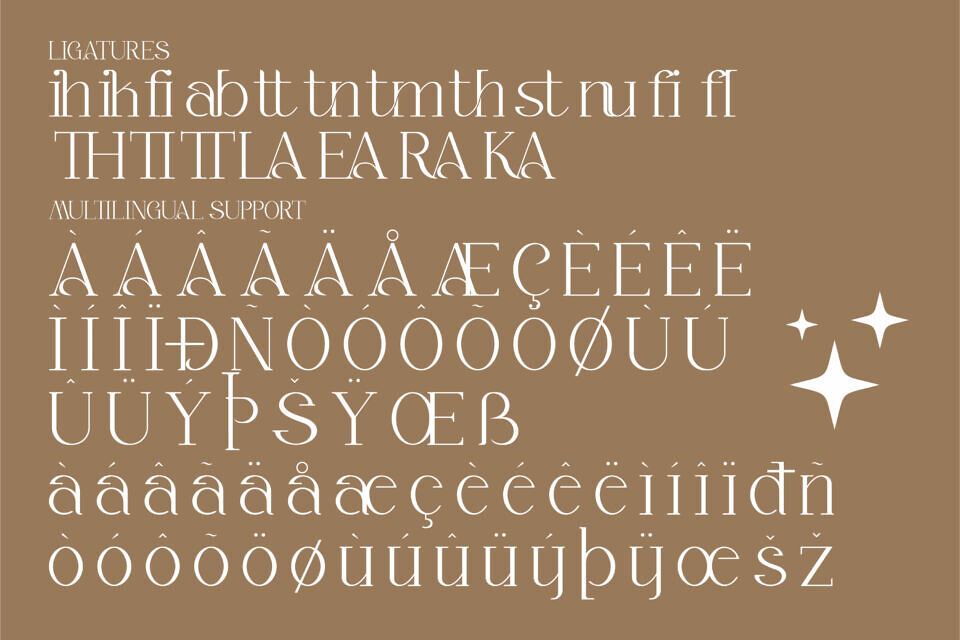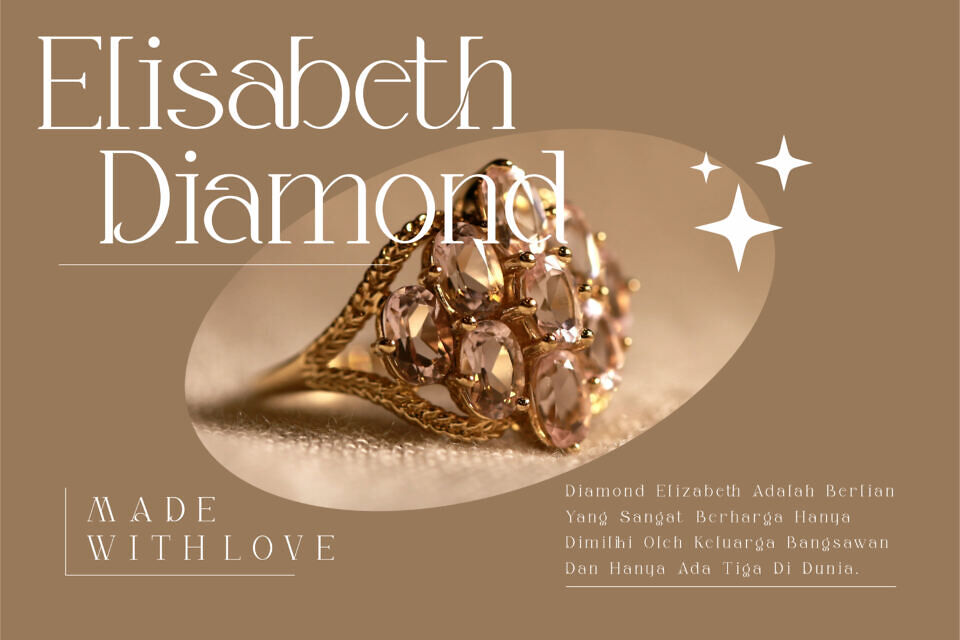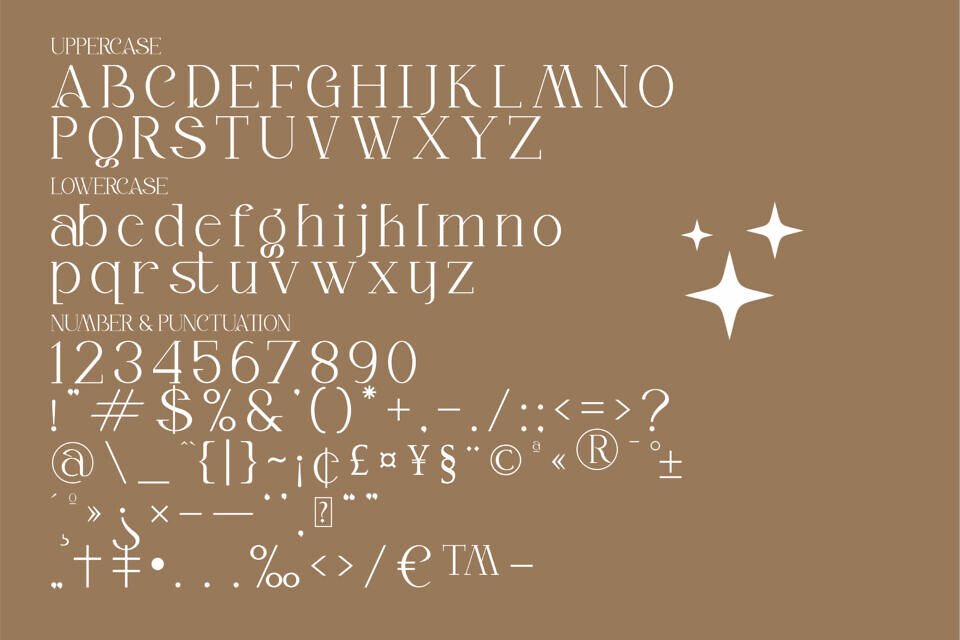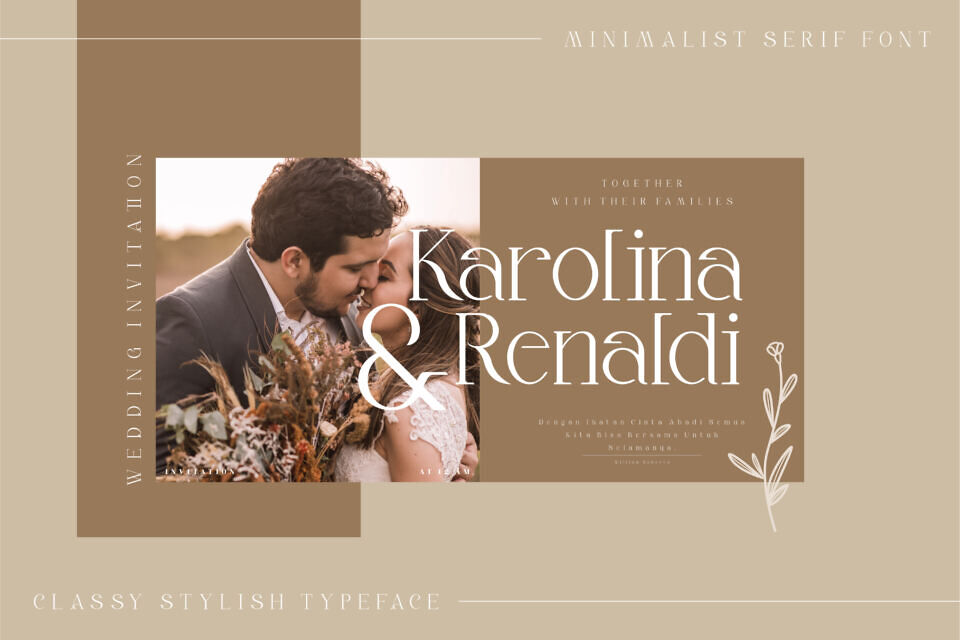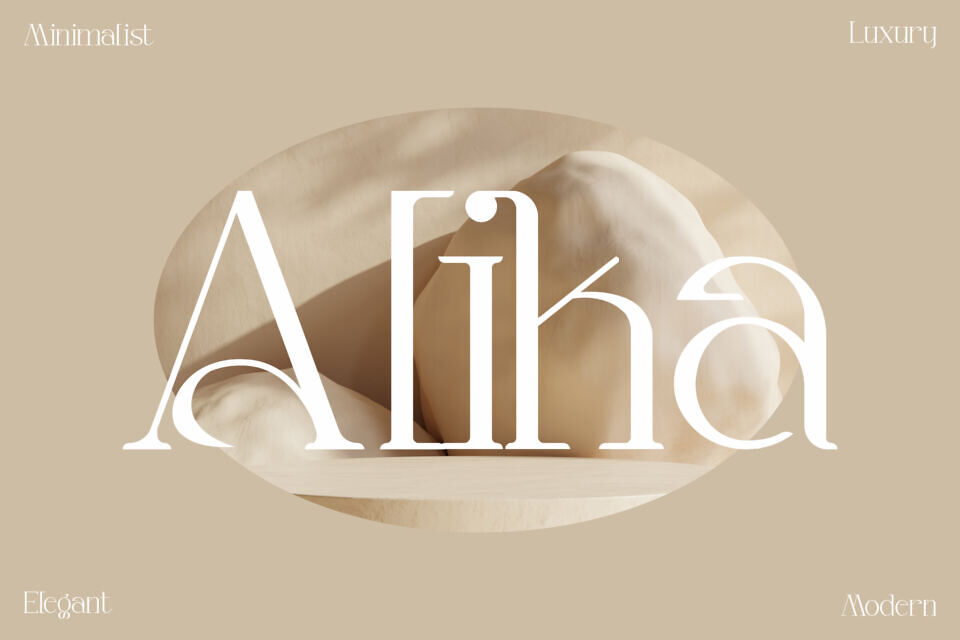
Alika Font
Proudly present Alika Typeface, created by Storytype, a serif modern and classic typeface that has own unique style & modern look. This typeface is perfect for an elegant & luxury logo, book or movie title design, fashion brand, magazine, clothes, lettering, quotes, and so much more.